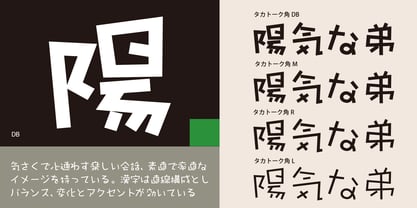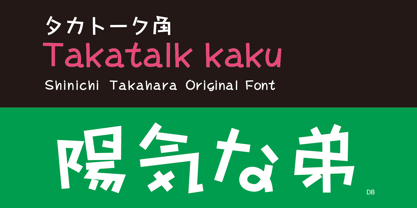
Takatalk-kaku
by Taka Design Production
The Takatalk-kaku Font Family was designed by and published by Taka Design Production. Takatalk-kaku contains 4 styles and family package options. More about this family
These characters are full of fun, with an image of friendly, heart-to-heart conversation, honesty, and frankness. The typeface is a light and witty typeface with a moderate balance between large and small characters such as “Hen” and “Tsukuri”, and with effective changes and accents.